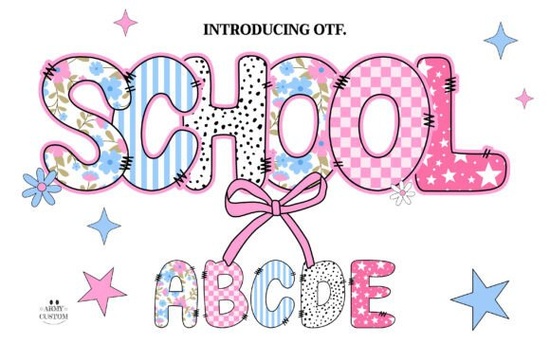
If you're looking for a font that feels both nostalgic and fresh think vintage yearbooks, retro florals, and soft preppy charm the Preppy Coquette Font is a thoughtful choice. It’s not just another decorative typeface; it’s designed with intention, balancing clean letterforms with subtle floral flourishes that nod to mid-century American aesthetics without overwhelming your layout. Whether you’re designing t-shirts for a small boutique, creating printable wall art, or building a cohesive brand identity for a handmade goods shop, this font brings warmth and character without sacrificing readability.
What makes Preppy Coquette different from other retro fonts?
Many retro fonts lean heavily into either kitsch or strict historical accuracy but Preppy Coquette sits comfortably in the middle. Its uppercase letters have gentle curves and slight contrast, while lowercase characters include delicate stem details and floral-inspired terminals (like little blossoms at the ends of strokes). Unlike overly ornate script fonts, it works well at medium sizes on mugs, tote bags, or Instagram story graphics without needing extra spacing or manual kerning tweaks.
You’ll also notice it includes alternate glyphs and ligatures, which means you can swap in a more stylized “&” or a swashy capital “Q” when you want to add quiet personality. That flexibility matters if you’re producing multiple product variations or seasonal collections. And because it’s a modern OpenType font, it supports standard Western European languages, making it practical for small businesses serving international customers.
Who uses this font and how?
Designers working with print-on-demand platforms like Printful or Redbubble often choose Preppy Coquette for apparel and home decor because it scales well on fabric and ceramic surfaces. Crafters building digital scrapbook kits or printable planners appreciate how its floral accents pair naturally with botanical clipart and hand-drawn borders. Small business owners launching a new stationery line or café branding find it especially useful for menu headers, thank-you cards, and packaging labels where tone and approachability matter as much as legibility.
It’s also popular among educators and homeschool parents creating themed learning printables. The font’s friendly yet polished look helps make worksheets and flashcards feel inviting not childish or overly formal. If you’ve ever struggled to find a font that feels “grown-up cute,” this one fits that space well.
How does it work with other design elements?
Preppy Coquette pairs beautifully with simple sans-serifs (like Montserrat or Lato) for body text, letting the headline font shine without competing. For color palettes, think muted pastels dusty rose, sage green, buttery yellow or classic navy-and-cream combos. You’ll see similar styling in our collection of colorful fonts, where it’s grouped with complementary options for seasonal campaigns or coordinated product bundles.
Because it includes floral motifs built right into the letterforms, you don’t need to layer separate SVG florals behind your text reducing file complexity and saving time when prepping files for cutting machines or embroidery digitizing. That’s especially helpful if you’re using Cricut Design Space or Silhouette Studio and want clean, single-layer text effects.
If you already have a project in mind whether it’s a spring collection label, a baby shower invitation suite, or a set of teacher appreciation stickers try pairing Preppy Coquette with soft textures and minimal layouts. Sometimes the most effective designs are the ones that let the type speak for itself.